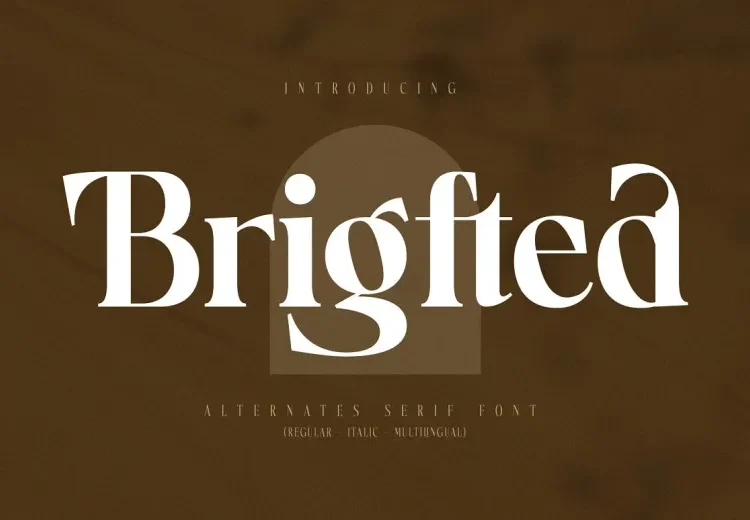
Brigfted Font
Brigfted is a sleek and contemporary serif typeface that combines style with versatility. Its refined design makes it perfect for crafting stylish logos, creating graphics reminiscent of movie or book covers, and adding sophistication to fashion or clothing labels. Whether you’re working on magazine titles, inspirational quotes, or other creative projects, Brigfted lends an air of elegance and professionalism.
With its modern aesthetic and adaptability, Brigfted is an excellent choice for designers looking to make a bold yet graceful statement. Its clean lines and timeless appeal ensure it fits seamlessly across a variety of applications, from branding and packaging to editorial layouts.